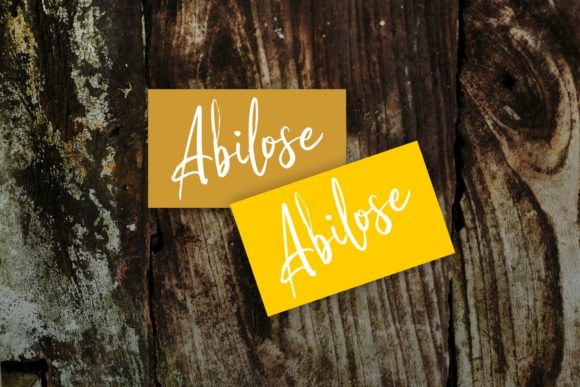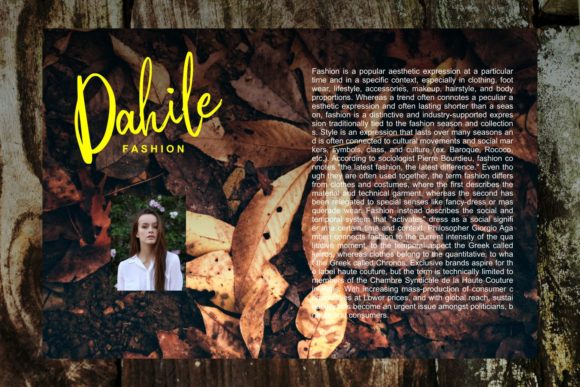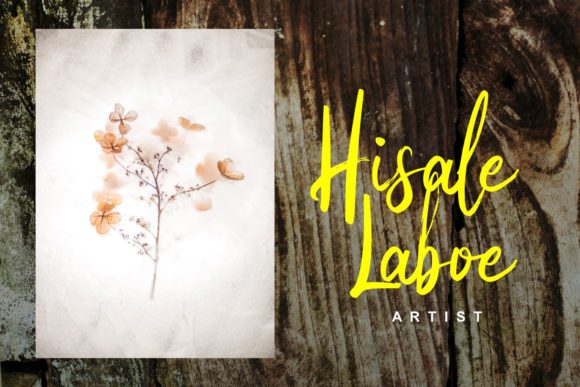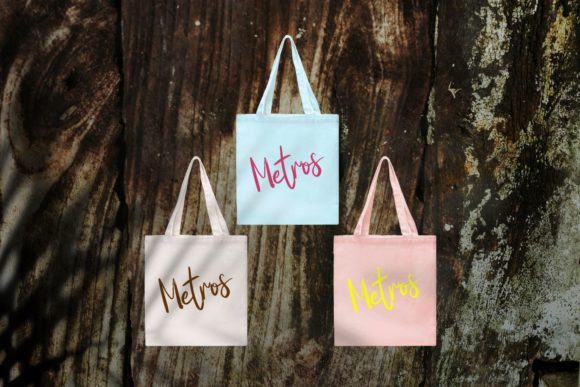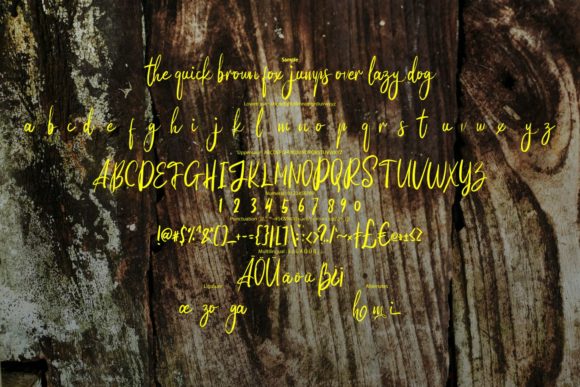
Introduction to Kodute Font
Kodute is a cute and casual handwritten font with an incredibly friendly feel.
Get inspired by its authentic feel and use it to create gorgeous wedding invitations, beautiful stationary art, eye-catching social media posts, and cute greeting cards .